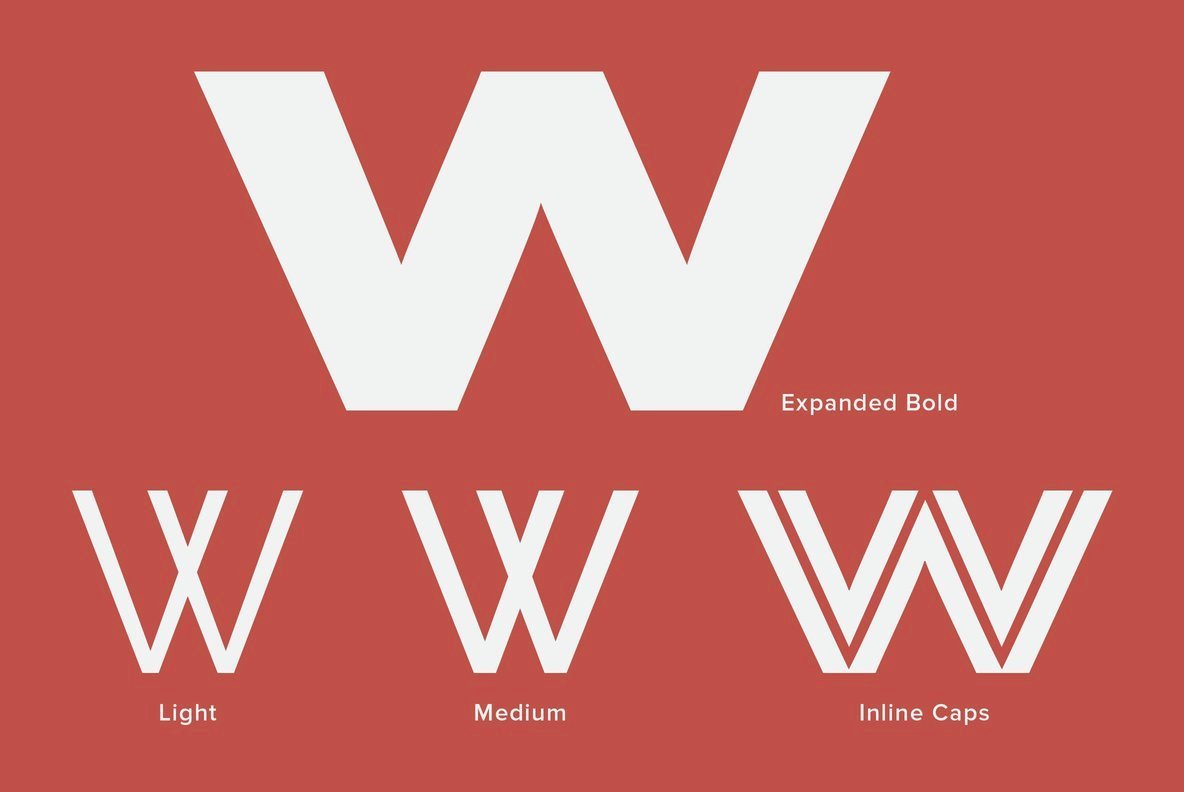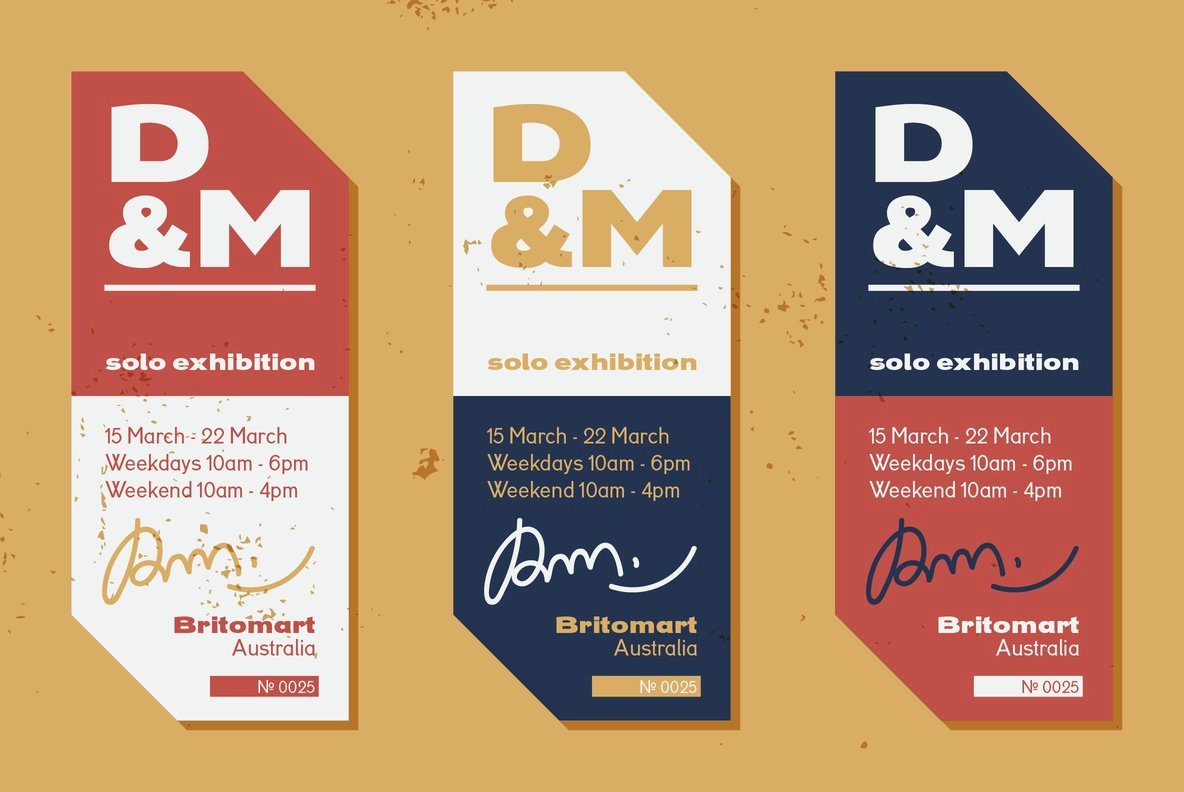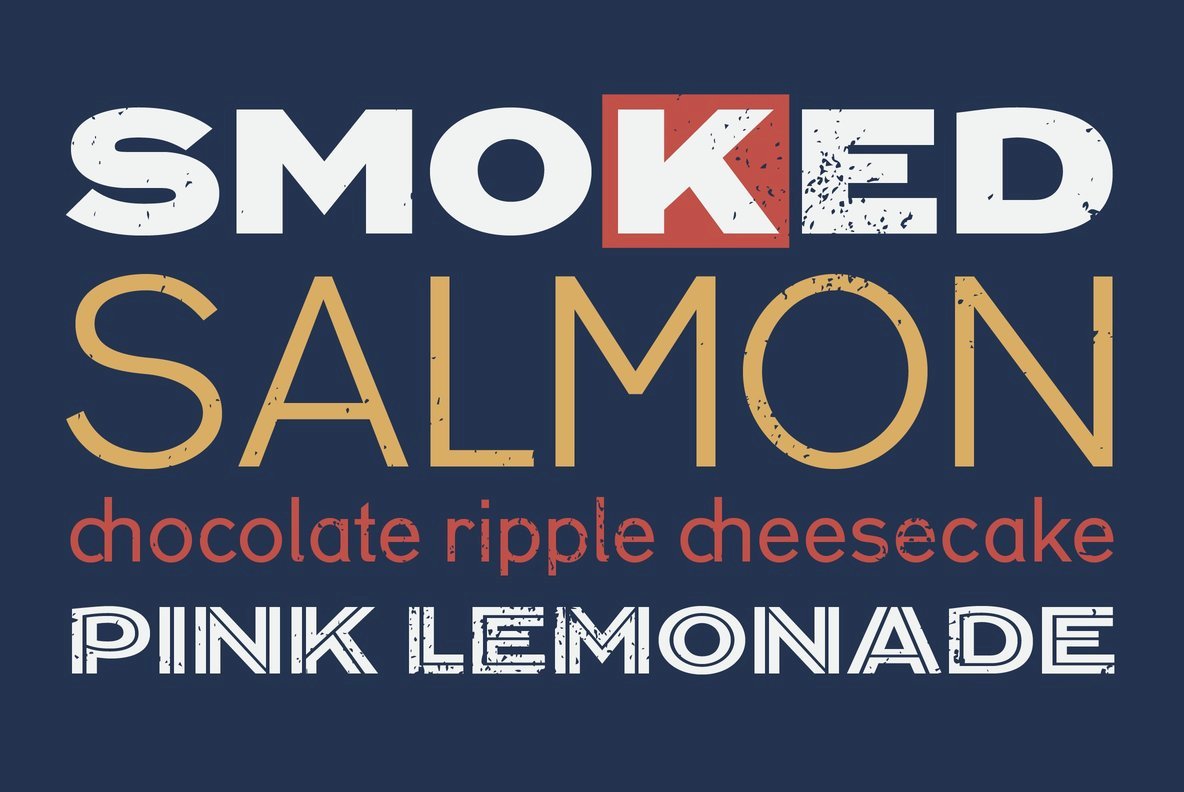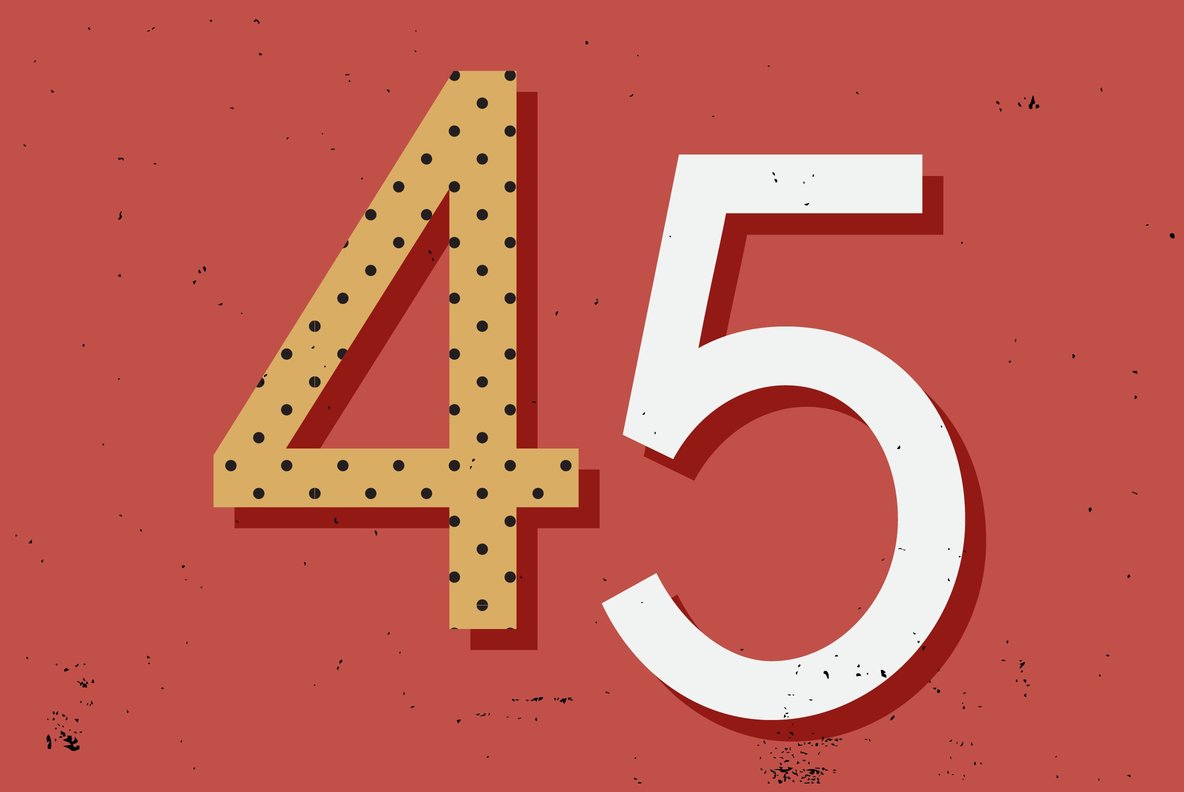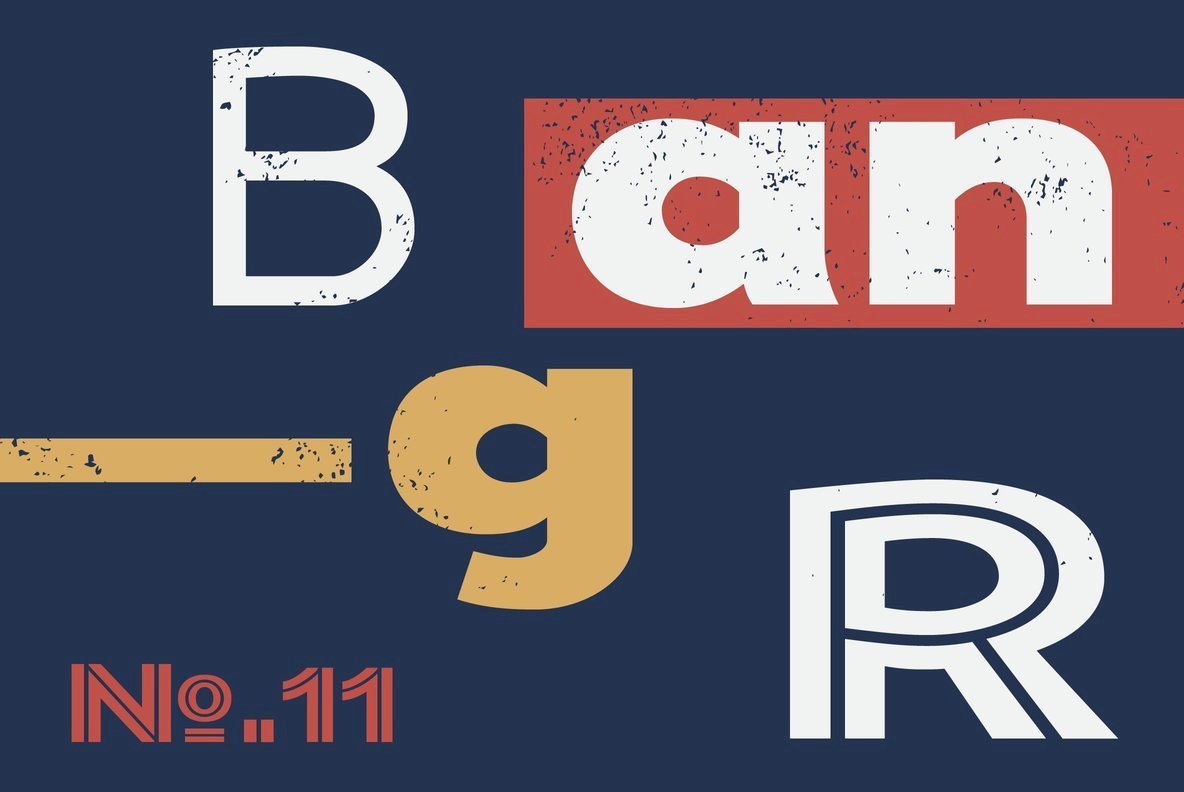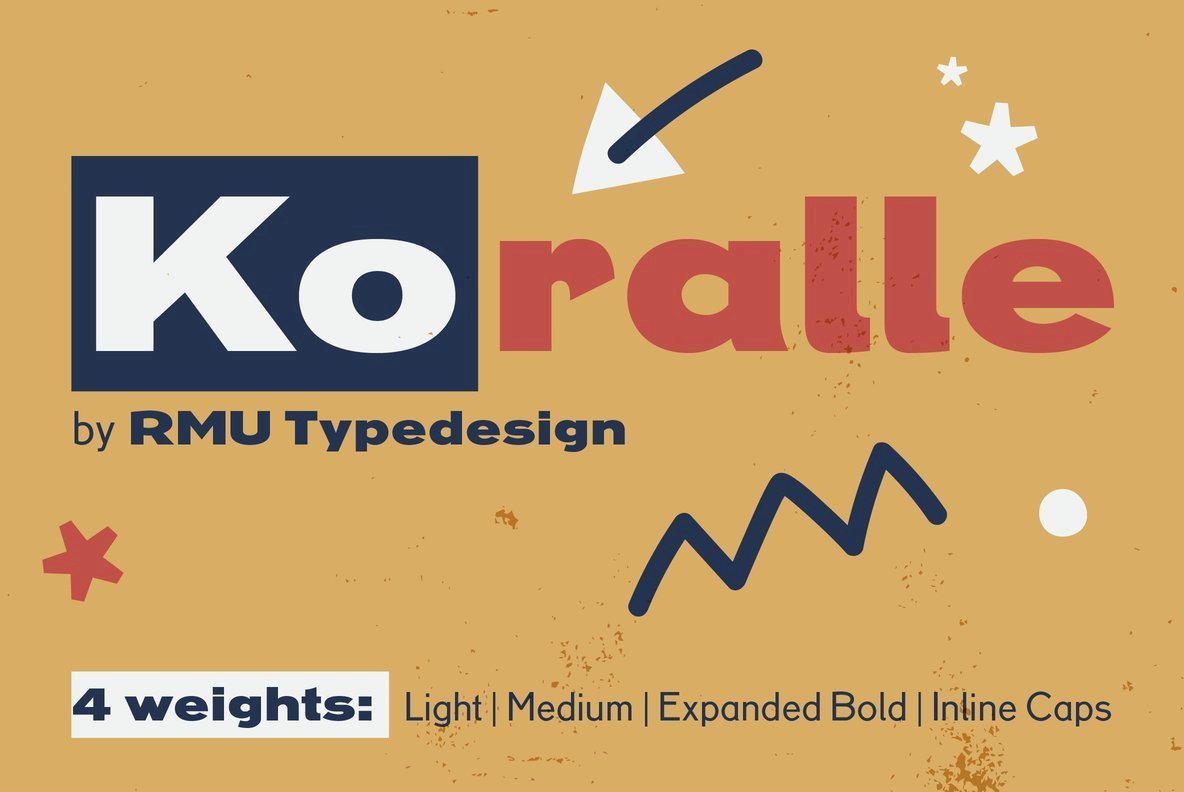
RMU Koralle Font Family
Koralle was an abundant family of grotesque font styles which had been released by Schelter &Giesecke in the first quarter of the previous century. Out of this family four of the most impressive styles were revived, whereby I stuck as close to the original as possible. All styles contain even the weird-looking capitalized German double-s of which I am a strong opponent.